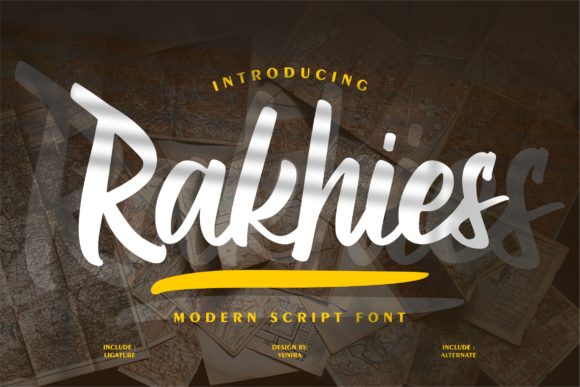
Dive into the realm of elegance with Rakhies Font, a script font family that exudes beauty and boldness. This handcrafted masterpiece, brought to life by Vunira, is designed to elevate your headlines and logotype projects with a touch of stylish sophistication. Each letter dances across the page with confidence, strength, and dynamism, adding a layer of nostalgic charm to your creative endeavors.
Rakhies Font is a visual symphony that captivates the senses. Its carefully crafted lines and curves create a visual feast that demands attention. Whether you're designing logos, posters, or eye-catching social media graphics, Rakhies Font will transform your words into works of art.
With its ability to evoke emotions and tell stories, Rakhies Font is not just a font; it's a creative tool that empowers you to connect with your audience on a deeper level. Let your imagination soar as you explore the endless possibilities that this font unlocks. From playful and whimsical designs to sleek and sophisticated creations, Rakhies Font adapts seamlessly to your vision.
Experience the transformative power of Rakhies Font today and elevate your designs to new heights. Embrace the beauty of handwritten elegance and let your creativity flourish.